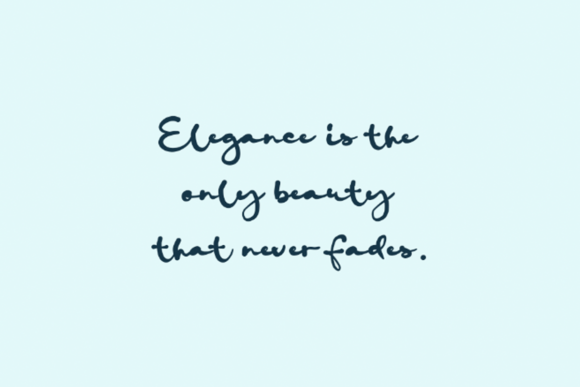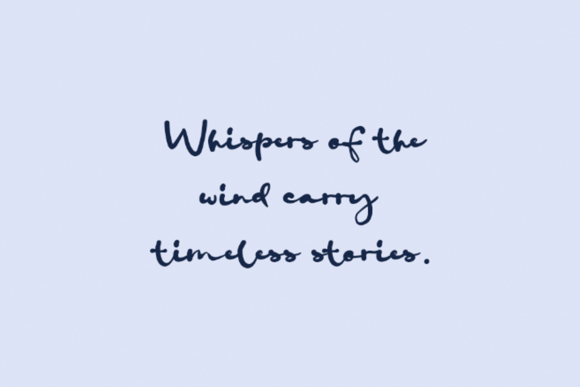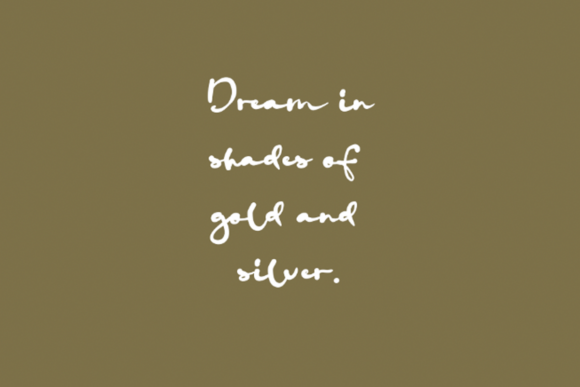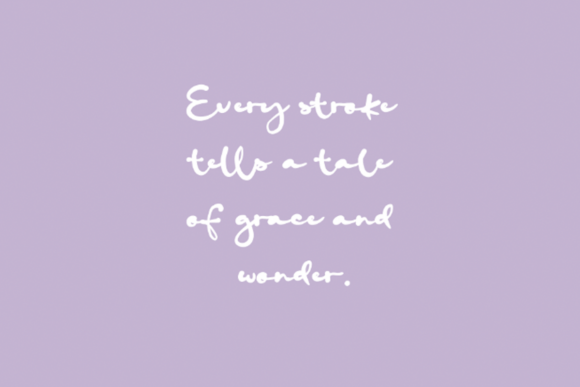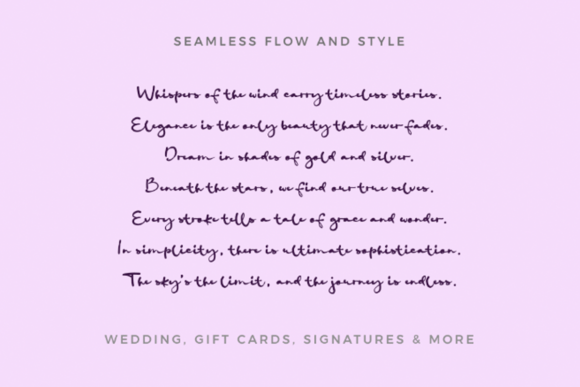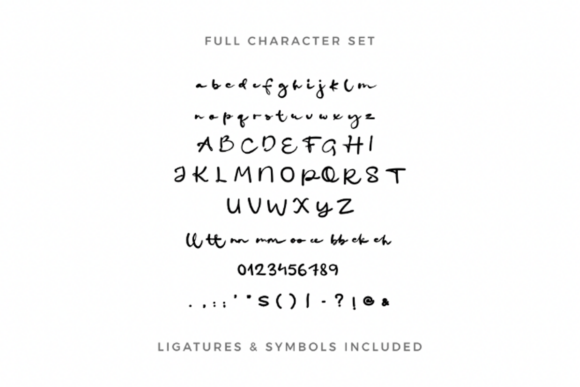
Unveiling Abundancy: The Bold and Beautiful Cursive Font That’s Changing the Game
I’ll never forget the moment I stumbled upon the perfect font for a project that had been lingering in my design limbo for weeks. I was working on a branding campaign for a new boutique hotel, and I just couldn’t seem to find the right fit. That was until I discovered Abundancy, a bold and unique cursive font that took my design to the next level. In this article, I’ll share my experience with Abundancy, its features, and how you can make the most of it in your creative projects.
The Abundancy Advantage: What Makes This Font So Special?
Abundancy is more than just a font – it’s an experience. With its courageously hand-lettered design, it deftly blends sophistication and expressiveness, making it an ideal choice for designers, crafters, and creative hobbyists looking to add a personal touch to their work.
What I Love About Abundancy ✨
• ✅ Unique and eye-catching design: Abundancy’s hand-drawn motifs make it stand out from more traditional fonts.
• ✅ Highly legible: Despite its bold and cursive nature, Abundancy remains easy to read, even at smaller font sizes.
• ✅ Expressive and emotive: This font is perfect for adding a touch of personality to your designs, whether it’s for a branding campaign or a creative project.
• ✅ OpenType features: Abundancy comes with a range of OpenType features, including glyphs and stylistic alternates, that allow you to customize your text.
A Few Quirks to Keep in Mind 🤔
• ⚠️ Not suitable for body text: Due to its bold and cursive nature, Abundancy is best used for headings, titles, or emphasis text.
• ⚠️ Limited kerning options: While Abundancy’s kerning is generally good, you may need to adjust it manually for optimal results.
Exploring Abundancy’s OpenType Features
Abundancy comes with a range of OpenType features that allow you to customize your text. Here are a few examples:
• Glyphs: Abundancy includes a range of glyphs that can be used to add decorative elements to your text.
• Stylistic alternates: Abundancy includes stylistic alternates that allow you to switch between different font styles.
The Story Behind Abundancy
Abundancy was designed by a team of typographers who wanted to create a font that was both bold and beautiful. Inspired by traditional hand-lettering techniques, Abundancy is a unique and eye-catching font that’s perfect for designers, crafters, and creative hobbyists.
Q: What is Abundancy?
A: Abundancy is a bold and unique cursive font that’s perfect for designers, crafters, and creative hobbyists.